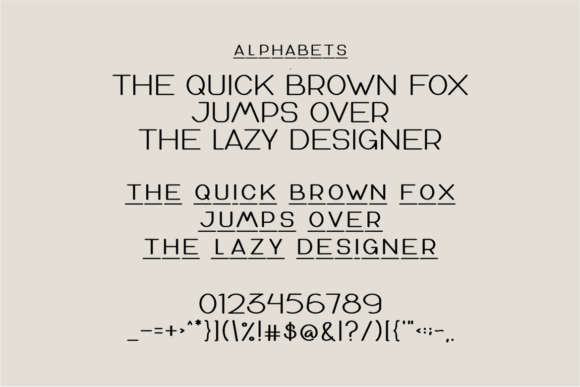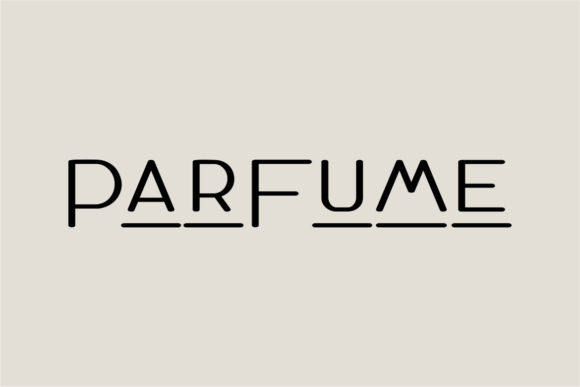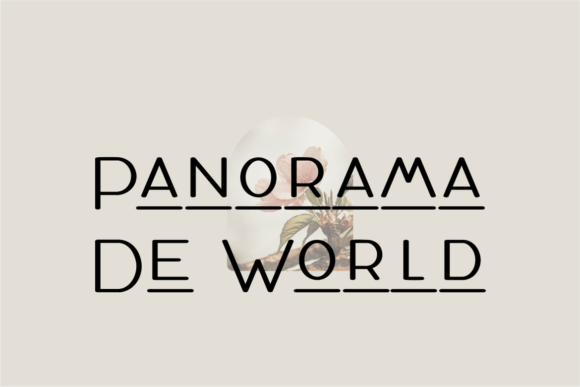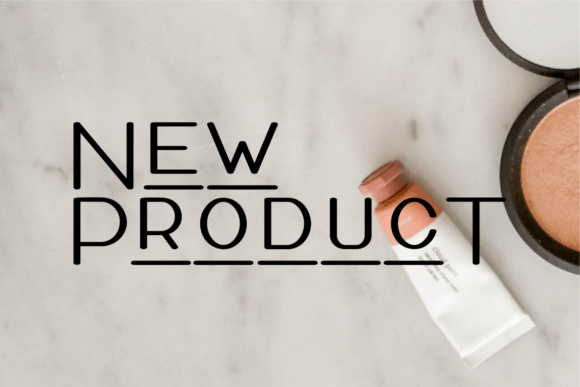
Introduction to Mokabella Font
MokaBeLLa is an elegant, classy, and modern sans serif font.
It’s a great font for fashion, apparel projects, signatures, album covers, logos, branding, magazines, social media, and advertisements, but also works great for other projects .
Key Features of Mokabella Font
Why Choose Mokabella Font?
Mokabella Font offers exceptional quality and versatility, making it a valuable addition to your design toolkit. Whether you’re creating for personal projects or commercial use, Mokabella Font delivers professional results.